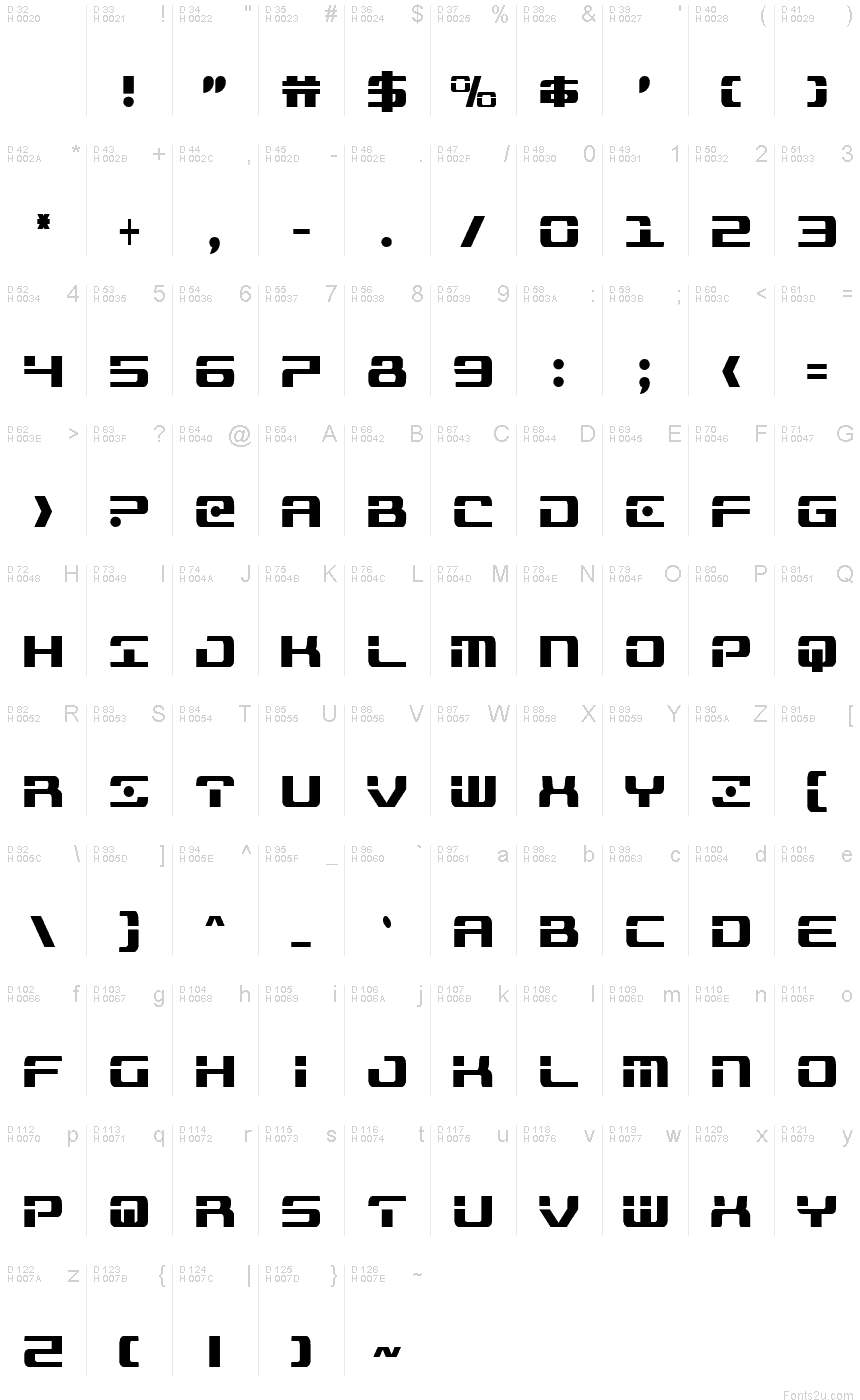
Troopers Condensed by Daniel Zadorozny of Iconian Fonts is a free futuristic display font with broad, low-slung letterforms. Heavy strokes, squared curves, and sharply cut openings give the lettering a machine-built profile, with occasional round details breaking up the rigid geometry.
Technology brands and gaming studios could use it for logos, interface graphics, and promotional posters with an assertive industrial edge. Its spacecraft-panel styling suits science-fiction packaging and event signage, where the letters can become part of the scenery.